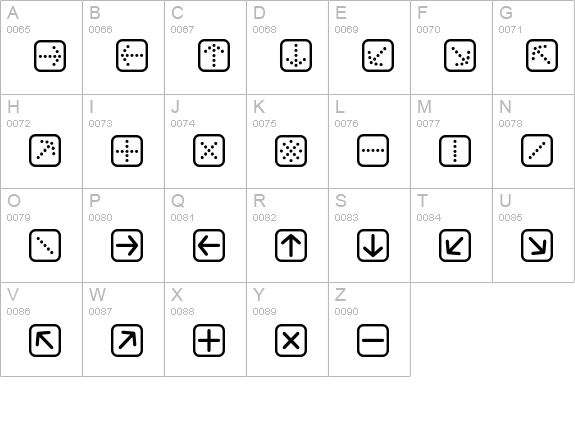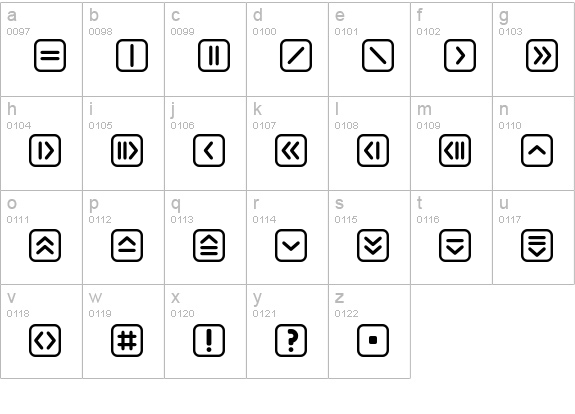
ButtonBonus-RoundedPositive Font Details
ButtonBonus-RoundedPositive font is a charming and versatile typeface that exudes positivity and playfulness. With its rounded edges and bold yet friendly appearance, this font is perfect for adding a touch of whimsy to any project. Whether you're designing a fun poster, creating a cheerful logo, or crafting a vibrant website, ButtonBonus-RoundedPositive font is sure to make your text pop. The best part? This delightful font is available for free download at FontsMarket.com. Simply head over to the website and grab your copy of ButtonBonus-RoundedPositive to add a splash of joy to your design arsenal. With its inviting aesthetic and easy readability, this font is a must-have for anyone looking to inject some lighthearted charm into their creative projects.